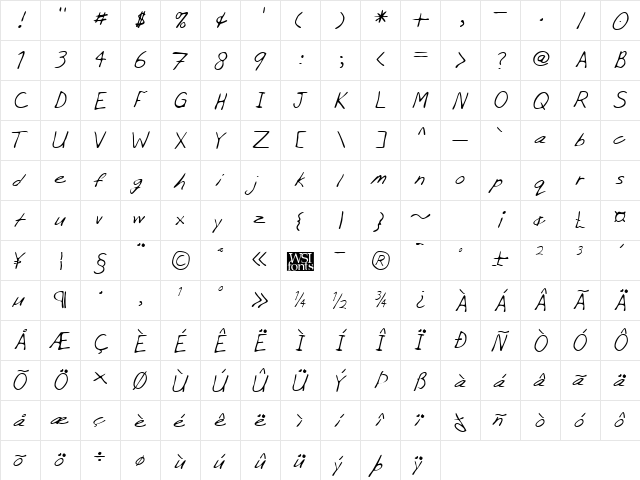
CidsHand Regular
Design Context for CidsHand Typeface
CidsHand brings a calligraphic fluidity to the page — its connecting strokes and expressive curves give it an unmistakably human quality.